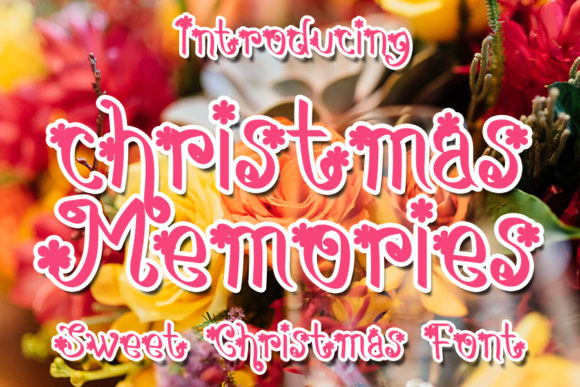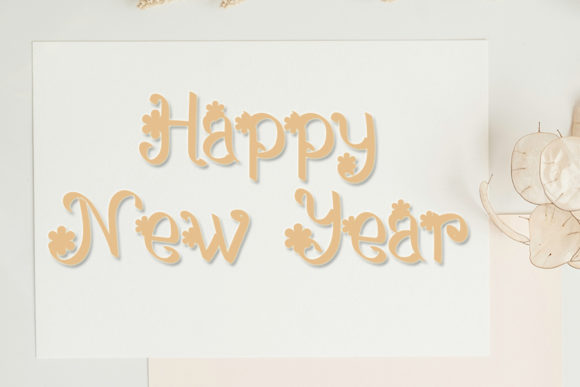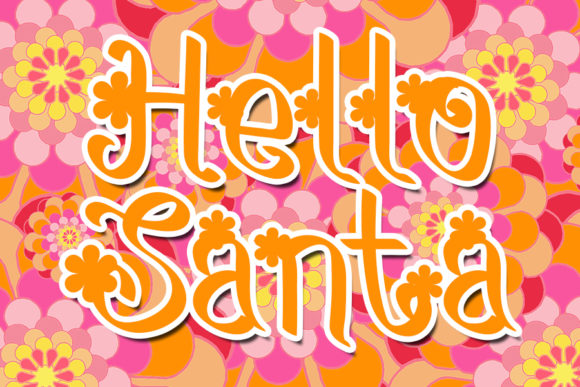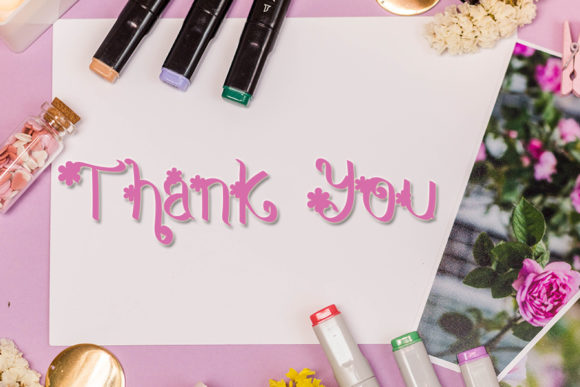
About Christmas Memories Font
Christmas Memories is a sweet, delicate and romantic handwritten font. Dainty and joyful, this font will be ideal for writing wedding invitations, cards or any other design that may need a romantic, personalized touch!